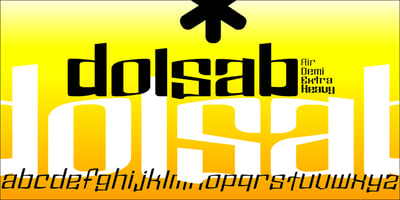
Dolsáb Font Family was designed by Kent Barns and published by Kent Barns. Dolsáb contains 8 styles and family package options. Dolsáb was designed from scratch with uniqueness in mind. The subtle movement from thick to thin and the variants of sharp to rounded make this cutting edge san serif a must have. The inspiration for Dolsab was a simple pairing of a rhombus and calligraphy. While neither of those two elements can be seen in their entirety in any instance, the influence of both is strong. The rhombus can be notice on most ascenders like on the lowercase t & l, for example. And the calligraphy inspiration is most easily captured on the descenders such as the lowercase y & g. The most beautiful characteristics of Dolsab is definitely the calligraphy-influenced movement. These features really stand out on the lowercase a & e. It’s almost amusing to let your eye follow the contours of those two letter forms as they travel from thick to thin, sharp to rounded and back again. Users are welcomed to try all font styles of Dolsab in any applique of their choosing. However, it will be quickly noticeable that only Dolsab Air & Demi (the thiner of the styles) will be best suited for body copy. Personally I like to see these letterforms as large as they can be to really showcase the subtle movement, especially in Dolsab Heavy where these movements become much more dramatic. You’ll never know what really works best unless you experiment. Dolsab surely isn’t the answer to all projects, but it’s certainly worth trying. No other typeface moves quite like Dolsáb.